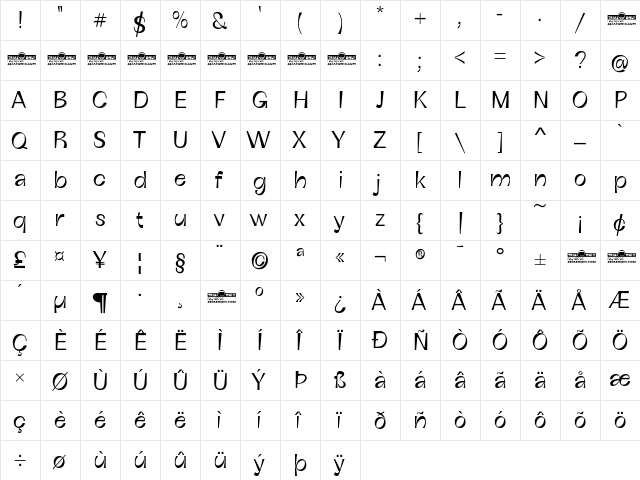
Boring Sans C Trial Light
Design Context for Boring Sans C Trial Typeface
Boring Sans C Trial offers clean, dependable letterforms without strong stylistic allegiance, making it a practical choice for designers who need flexibility. Its slender proportions lend an understated elegance to any composition.